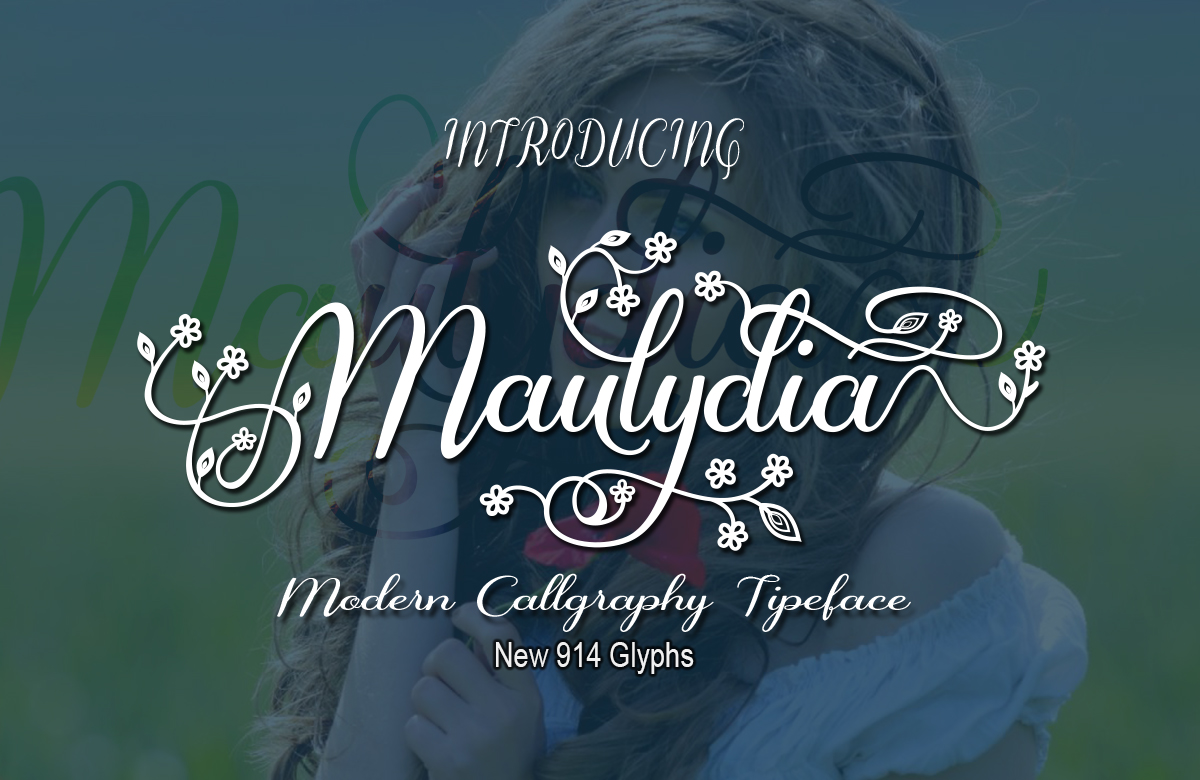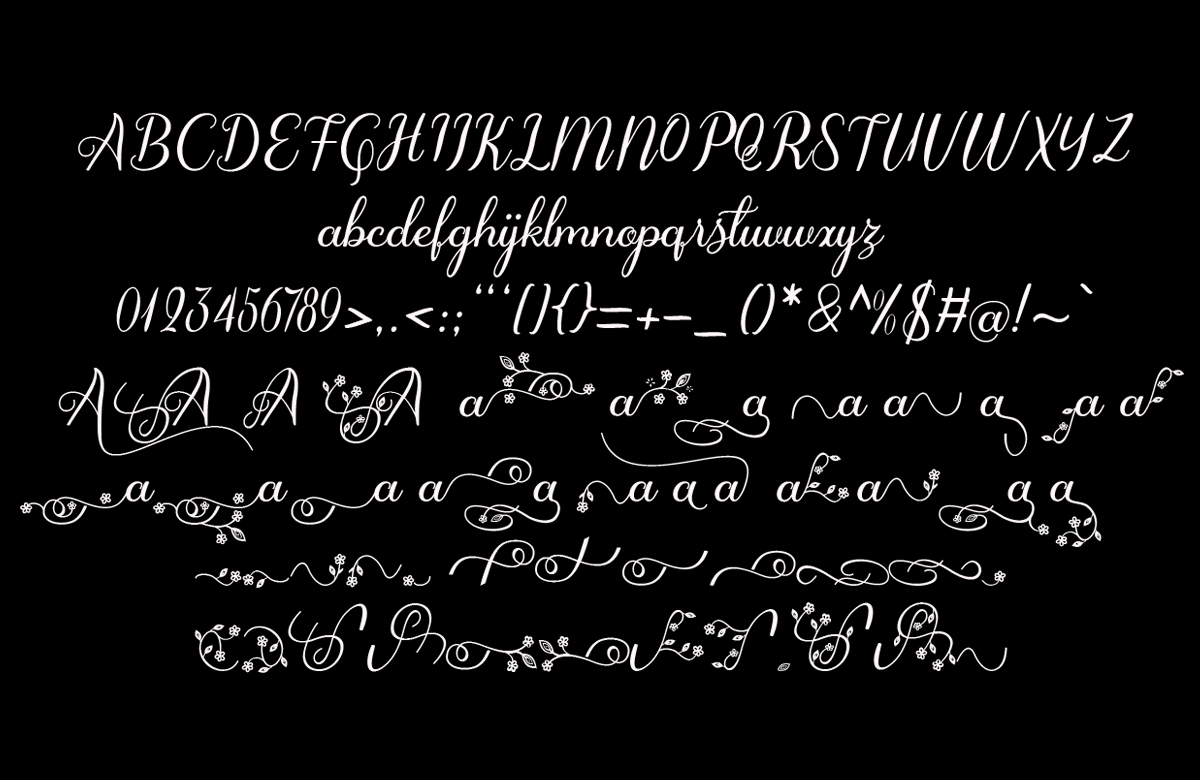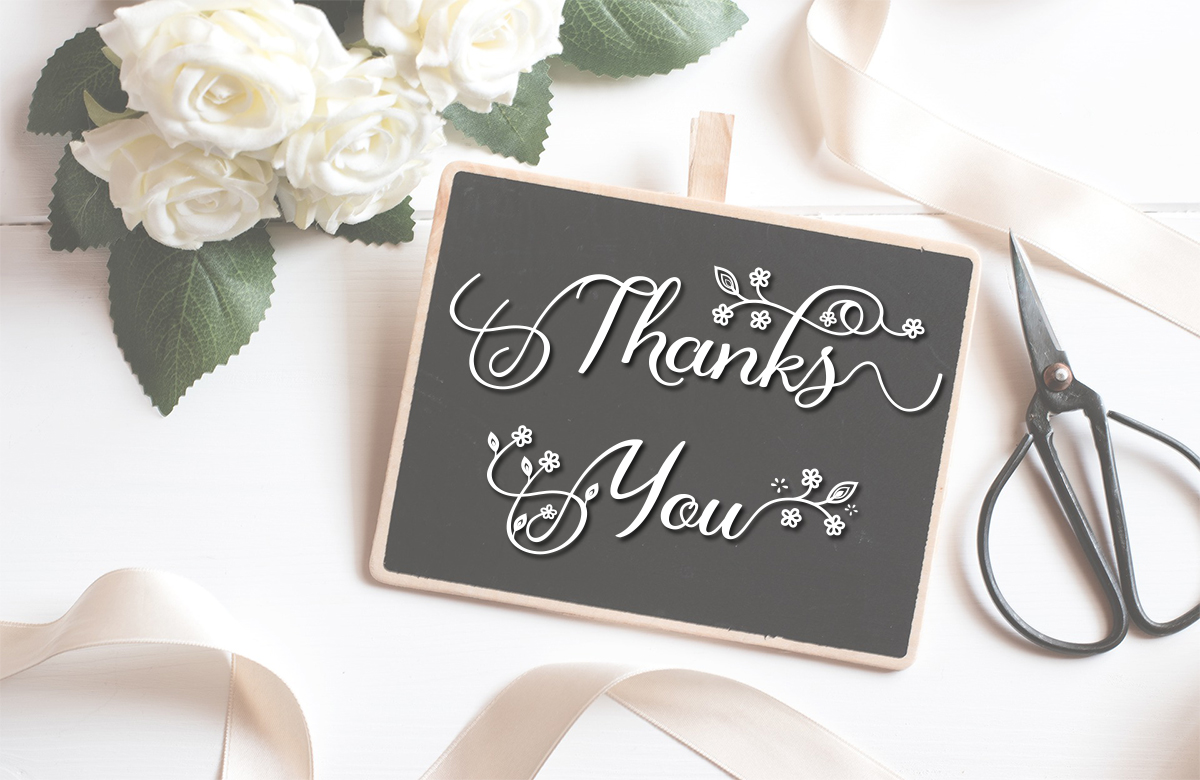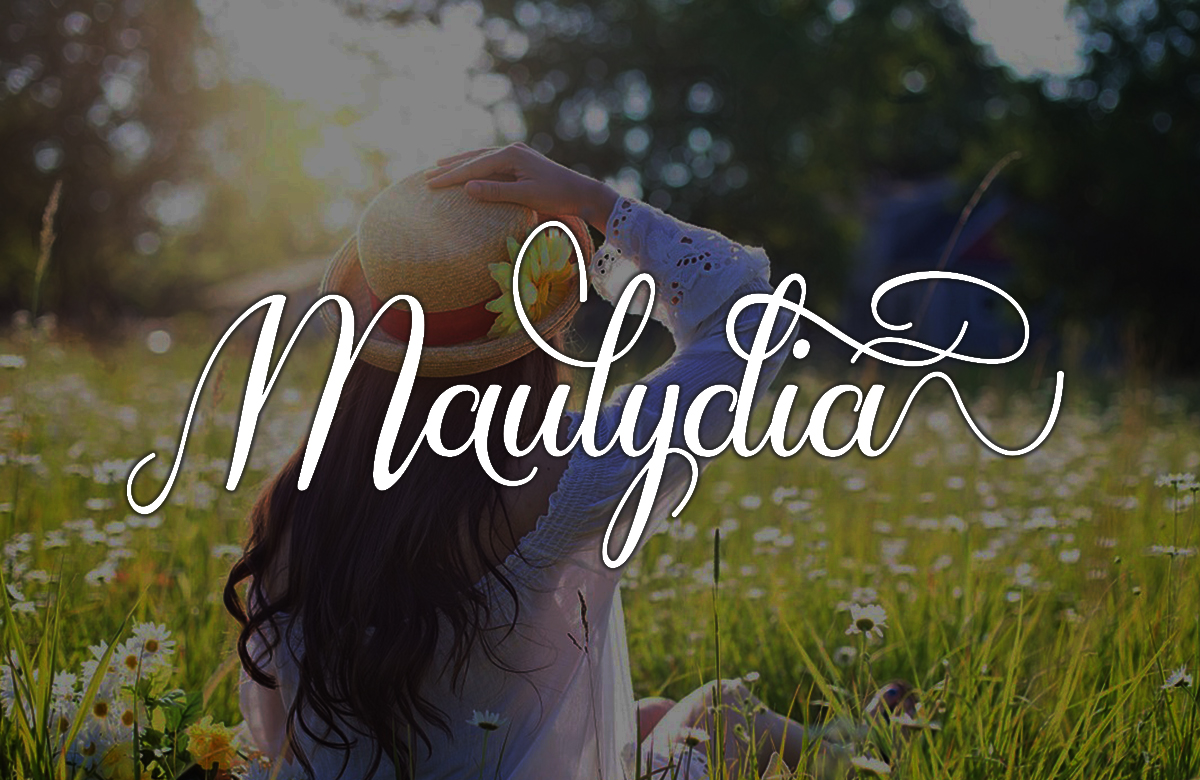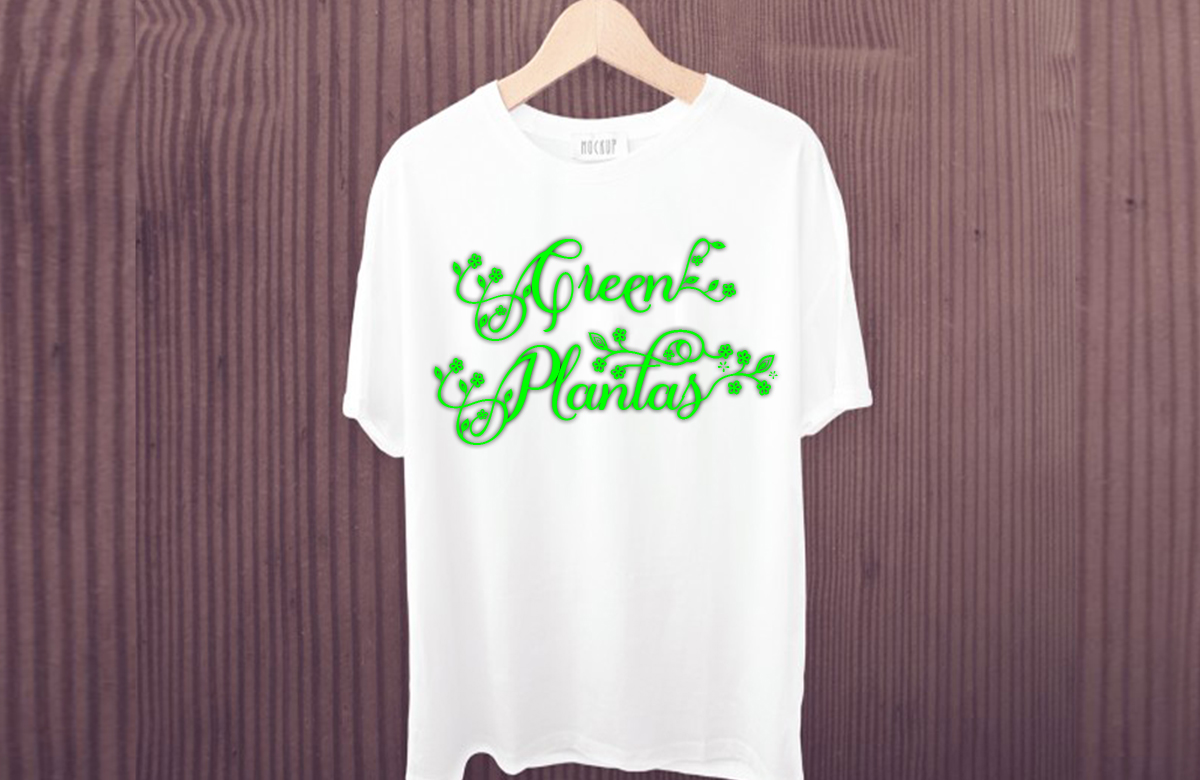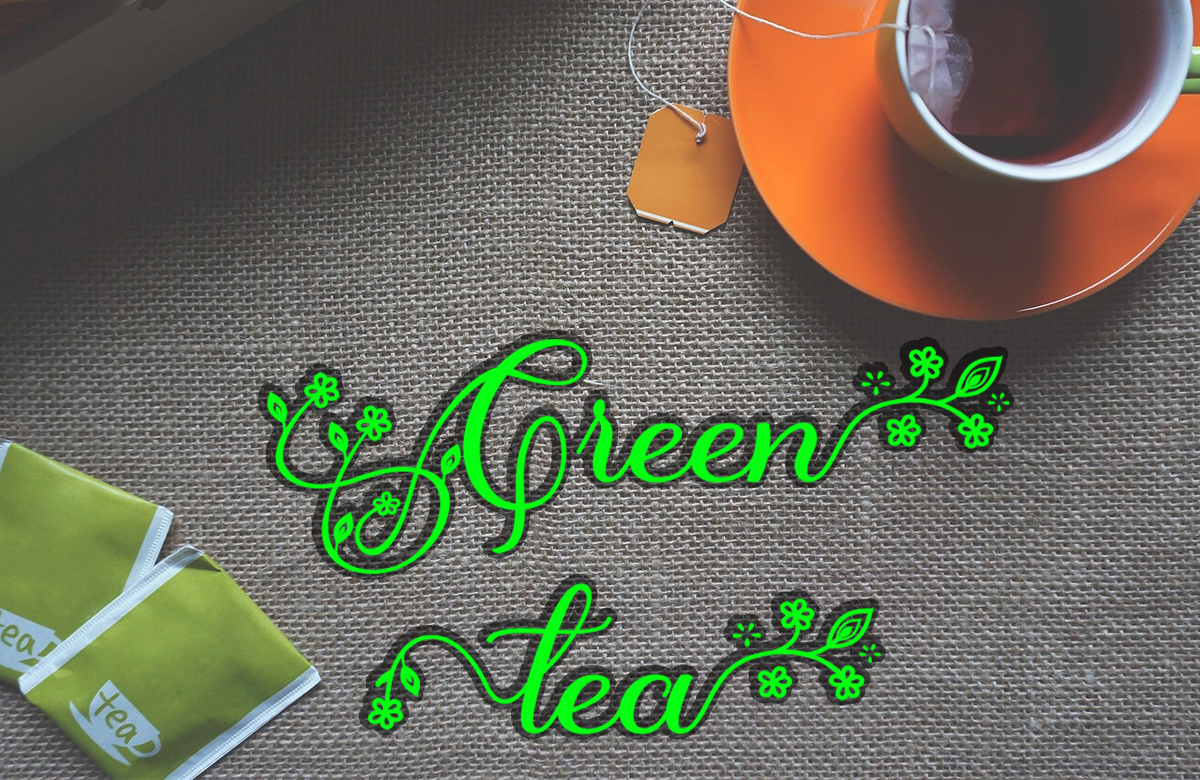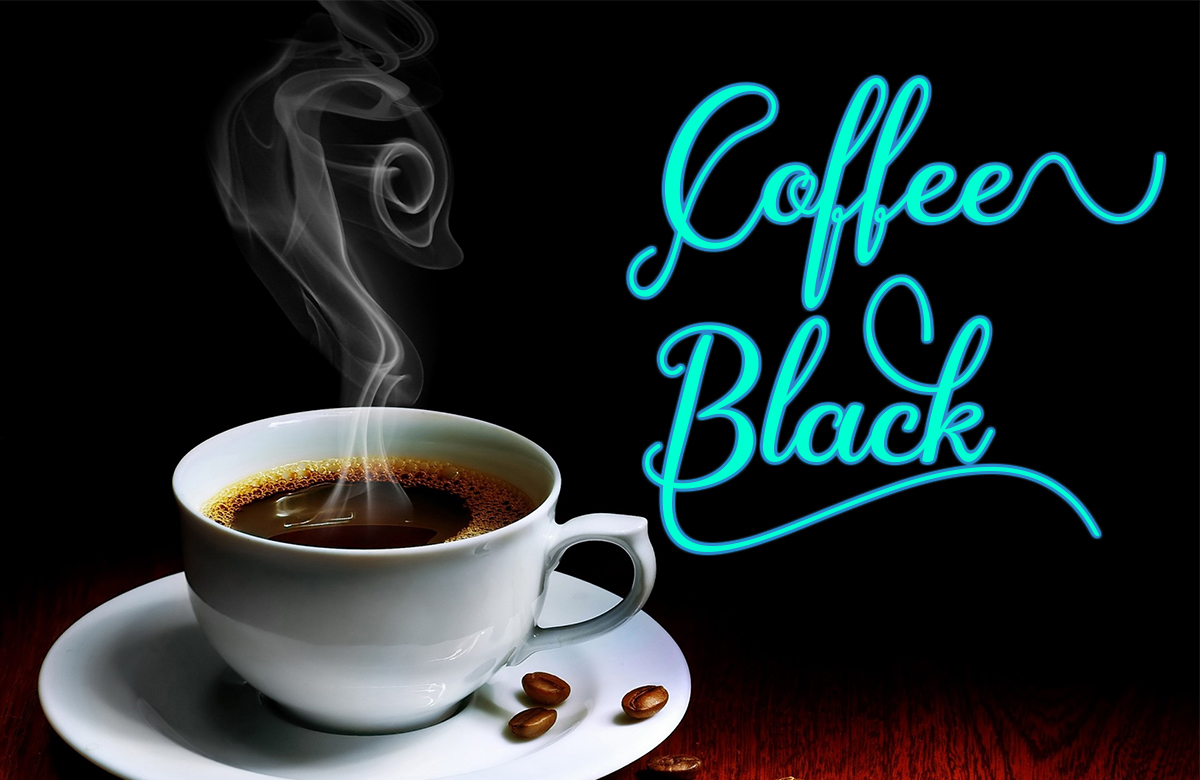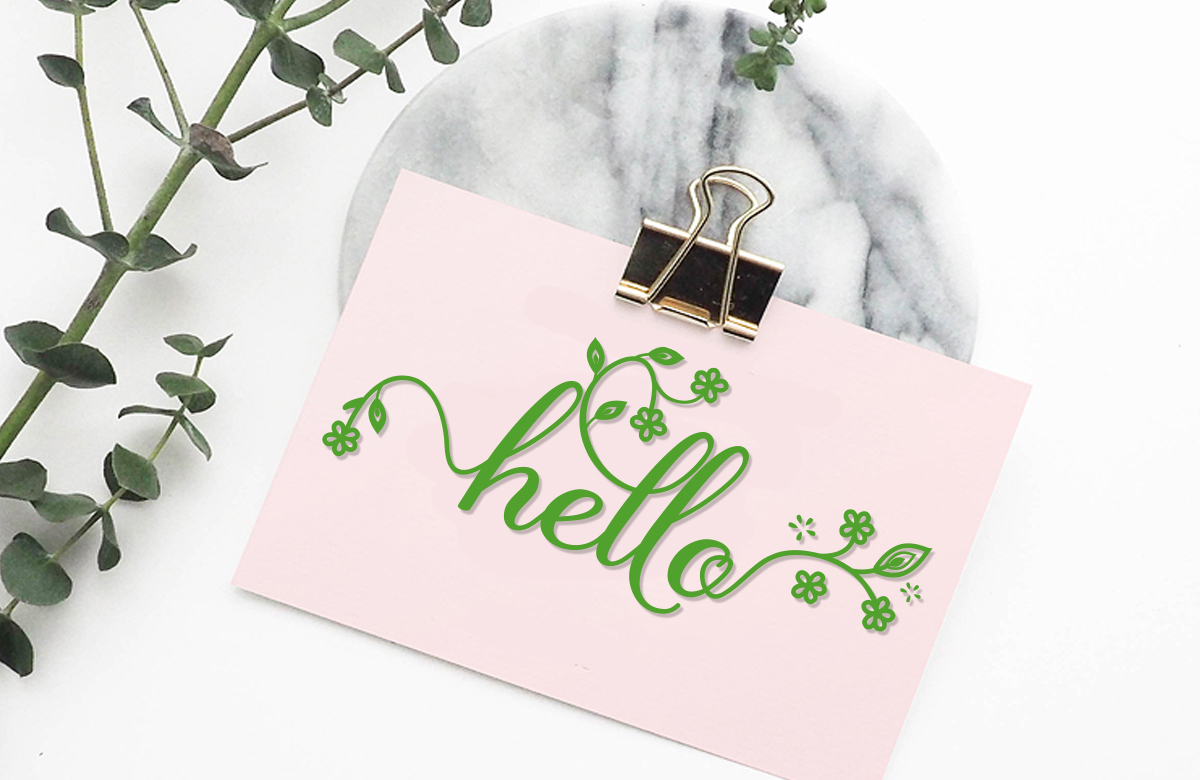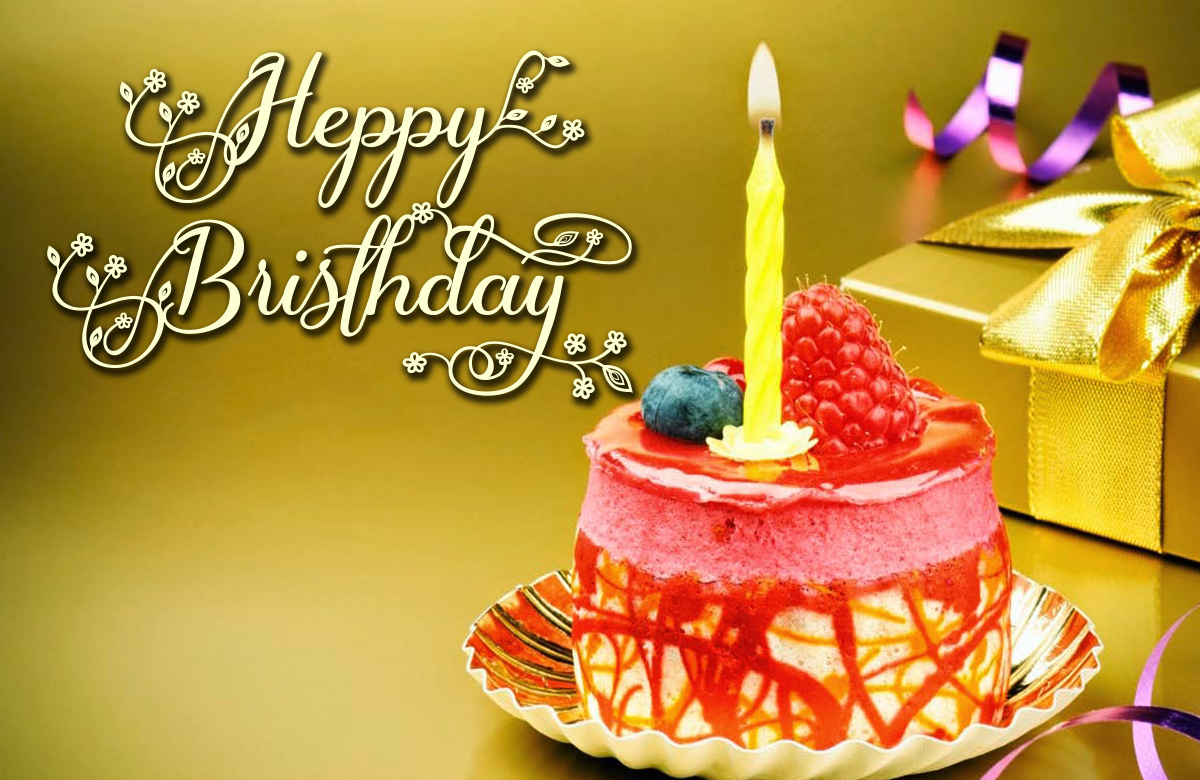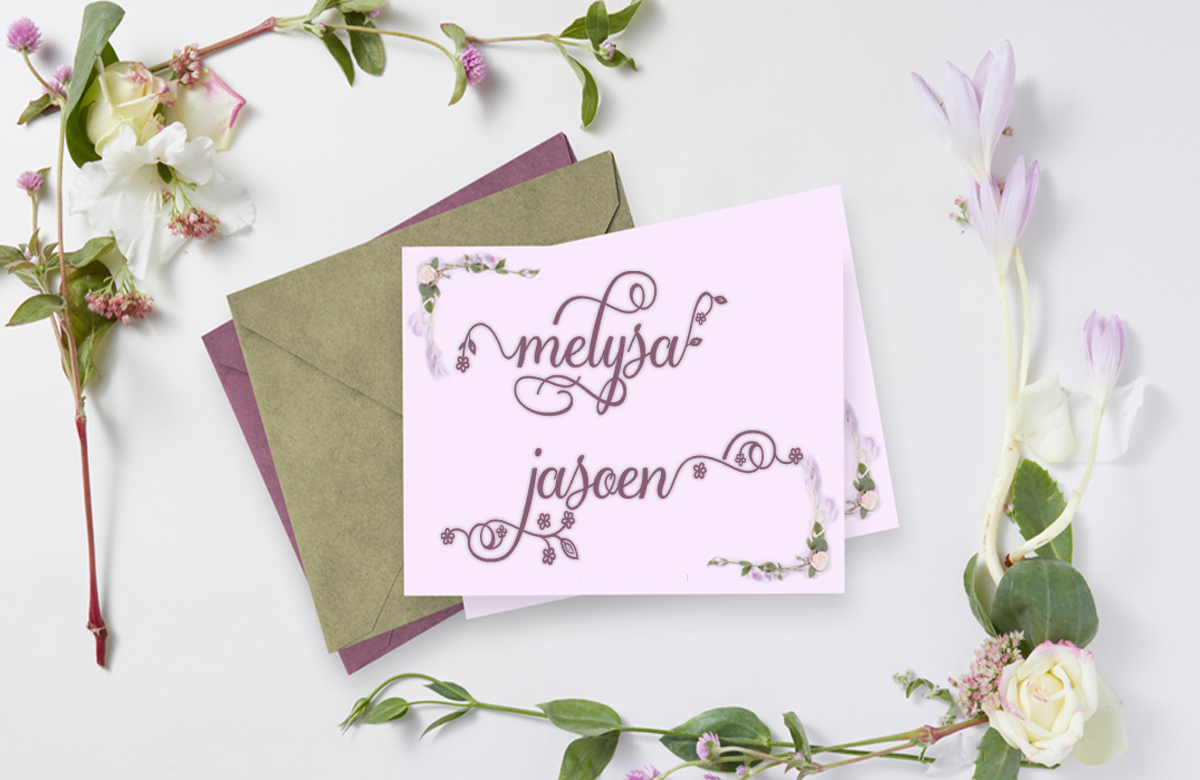
Maulydia Font
About Maulydia Font
The Maulydia script is a fresh, handmade calligraphy style script.
The decorative letters bounce on a dancing baseline, making the text flow on your screen. It’s a great font for decorative designs. As it comes packed with many alternate characters, you can keep using this font over and over again.